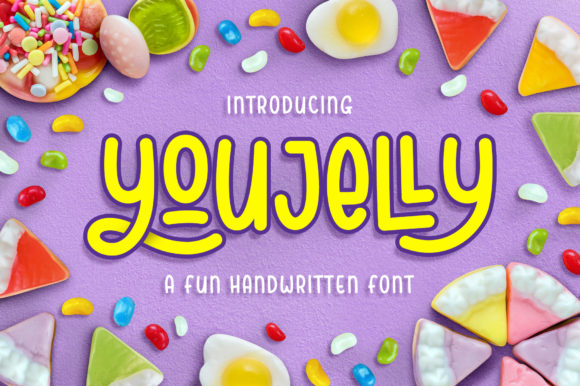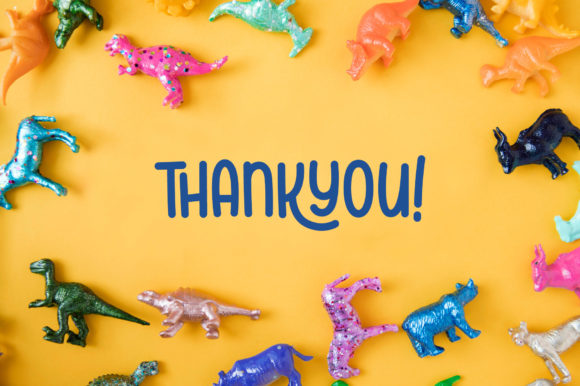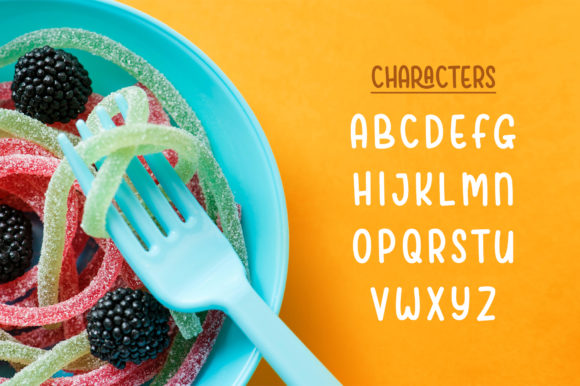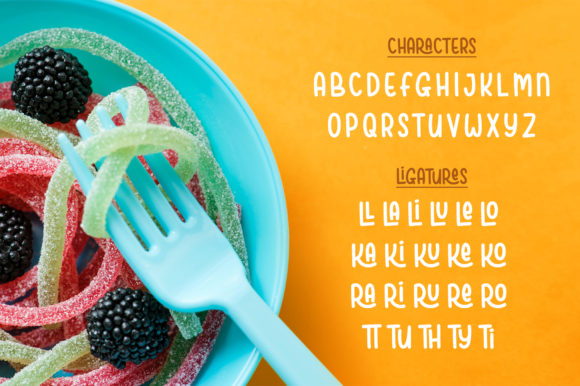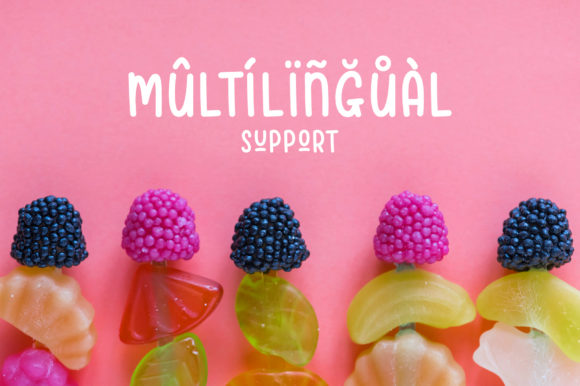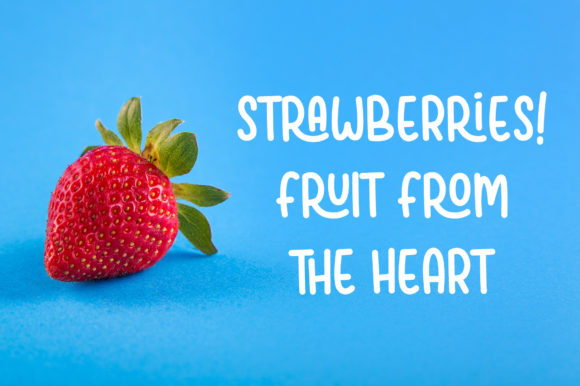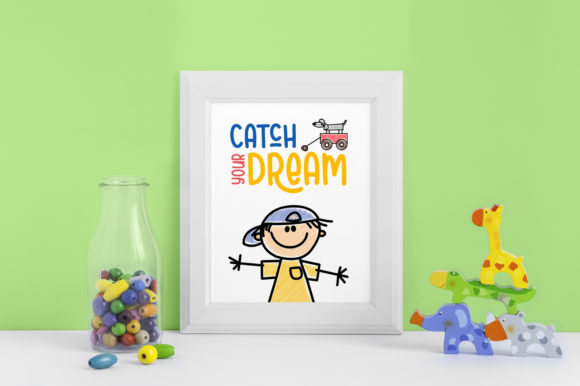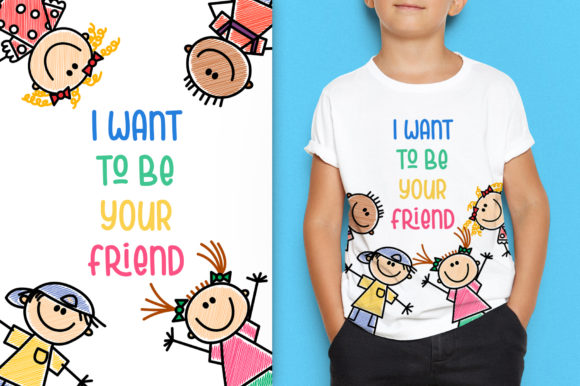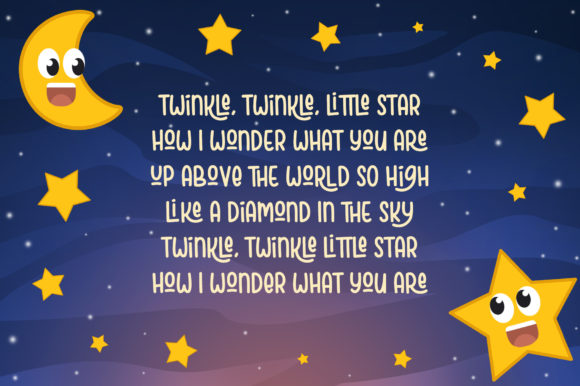
Youjelly Font
About Youjelly Font
Youjelly is a fun handwritten font, perfect for a big variety of design projects. It will add a whimsical touch to any design.